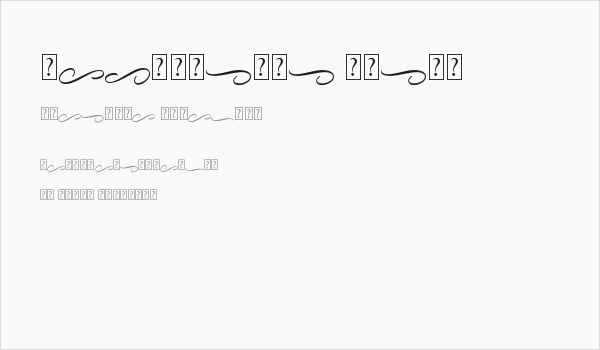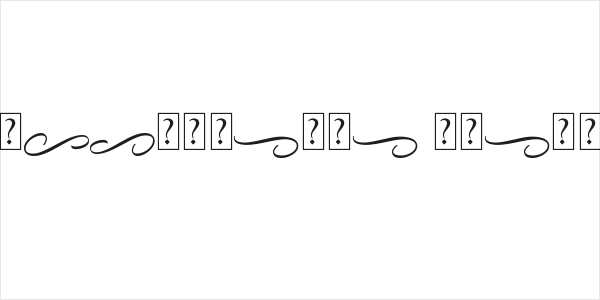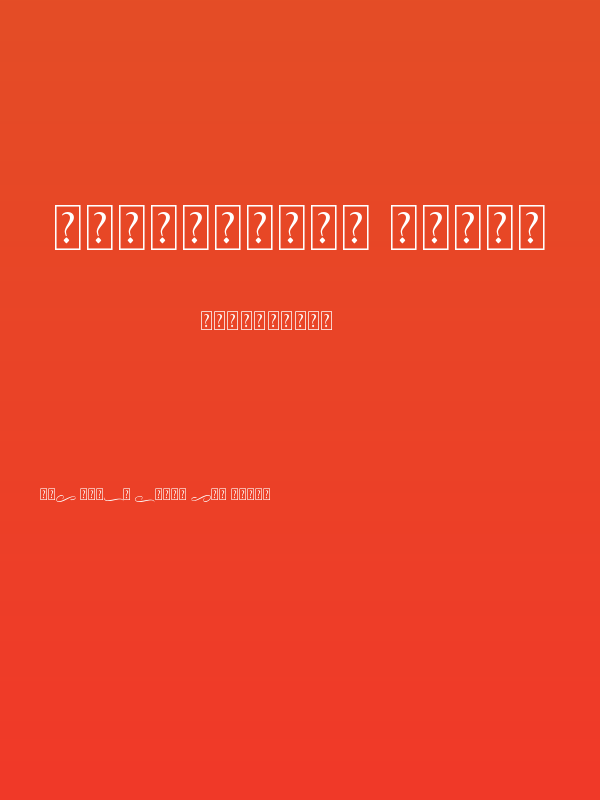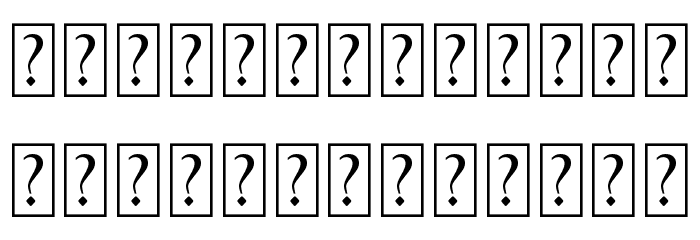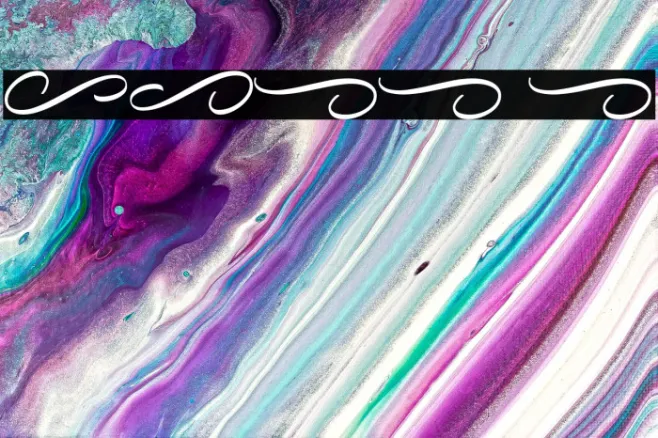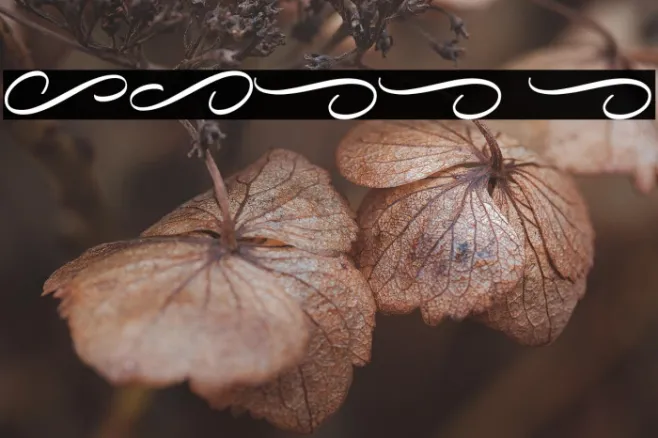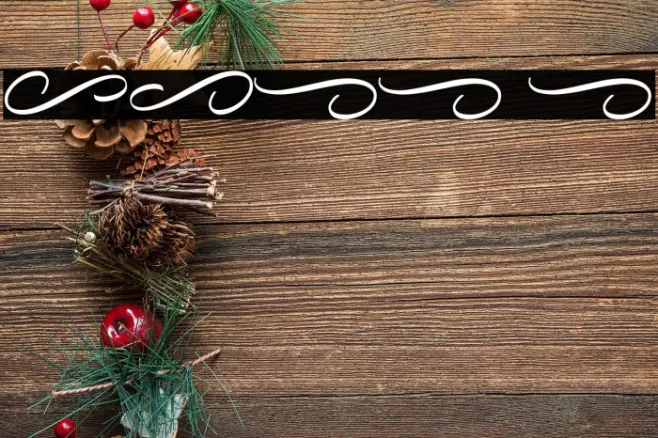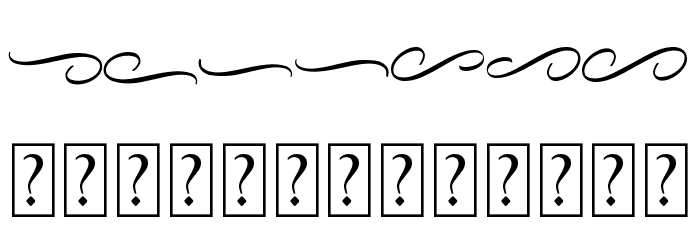
Reflisatta Swash Font
Reflisatta Swash Description
This font features elegant and flowing swashes that add a decorative flair to each character. The design is characterized by its intricate curves and flourishes, making it ideal for creative and artistic projects. The font's style is reminiscent of classic calligraphy, with a modern twist that enhances its visual appeal. The characters are well-balanced, with a harmonious blend of thick and thin strokes that create a dynamic contrast. This font is perfect for adding a touch of sophistication and elegance to any design, whether it's for invitations, branding, or decorative purposes.
| Proposed Projects | Ideal for wedding invitations, branding, logos, and decorative designs. |